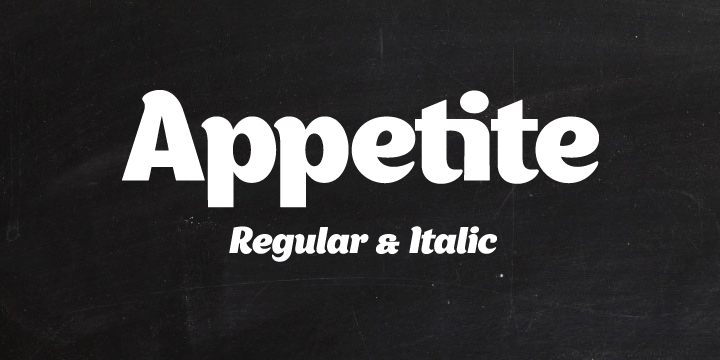
Appetite Font is perfect for restaurant menu design, gourmet food packaging, culinary blog headers, cooking show graphics, food truck branding, bakery signage, recipe book layouts, chef portfolio materials, food magazine headlines, and appetizing marketing campaigns for dining establishments.
Appetite Font is exciting because it captures the irresistible allure and sensual appeal of gourmet cuisine through its deliciously crafted letterforms that embody the passion and artistry of culinary excellence, creating an immediate sense of hunger and gastronomic desire that makes mouths water.
The Appetite Font family includes Regular, Bold, Light, Savory, Spicy, and Delicious variants, each maintaining the distinctive culinary character while offering different weights and flavor-inspired styles for mouth-watering food industry design applications.
Savor the taste of exceptional typography with Appetite Font Free Download. This deliciously crafted typeface brings the passion and artistry of culinary excellence into contemporary design, featuring letterforms that embody the sensual appeal and irresistible allure of gourmet cuisine. The font's appetizing character and gastronomic personality make it perfect for restaurants, food brands, and culinary professionals seeking to communicate quality, passion, and the irresistible appeal of exceptional dining experiences.
Appetite Font excels in culinary and hospitality applications where taste appeal and gastronomic sophistication are essential. Its distinctive character draws inspiration from fine dining typography and gourmet food presentation, making it ideal for high-end restaurants, gourmet food producers, and culinary brands targeting food enthusiasts who appreciate exceptional quality, culinary artistry, and the finest gastronomic experiences.
The creation of Appetite Font involved extensive study of culinary typography and food presentation principles, ensuring each character reflects the sensual appeal and artistic sophistication that defines exceptional cuisine. This attention to gastronomic detail creates letterforms that feel both appetizing and sophisticated, capturing the intersection of culinary art and visual design that drives successful food branding.
For designers working with restaurants, food brands, or culinary organizations, Appetite Font provides the perfect balance of gastronomic appeal and professional functionality. It pairs beautifully with food photography, complements both elegant and casual dining aesthetics, and maintains its appetizing character across all applications, from fine dining menus to casual food truck graphics.
Whether you're creating restaurant identities, gourmet product packaging, culinary publication layouts, or food marketing campaigns, Appetite Font delivers the irresistible culinary voice that resonates with food lovers and dining enthusiasts who appreciate exceptional cuisine and gastronomic excellence. Its combination of culinary sophistication and practical design makes it an invaluable tool for any project requiring the ultimate in food industry communication and appetizing visual appeal.